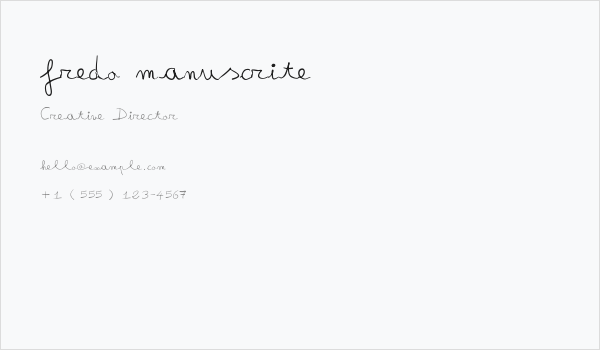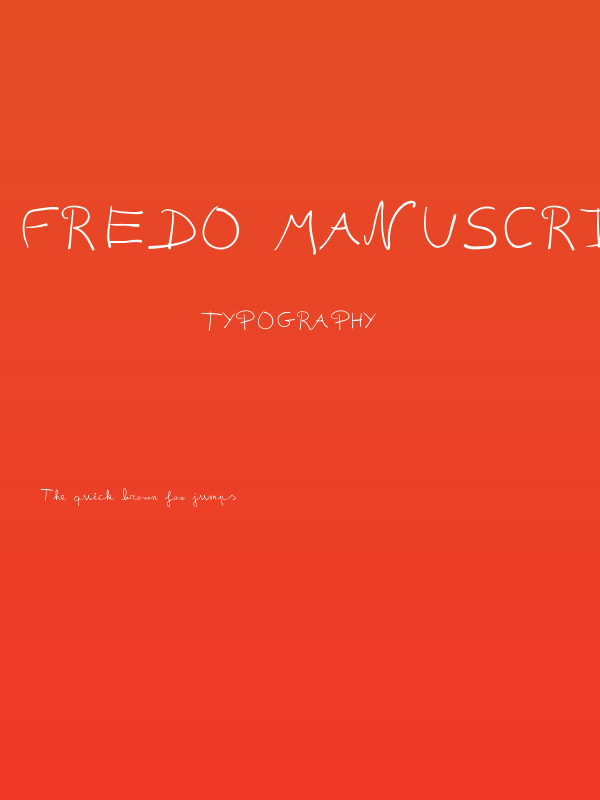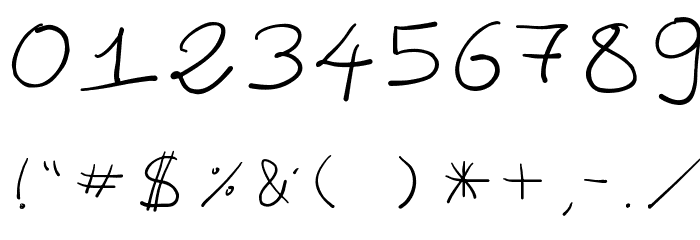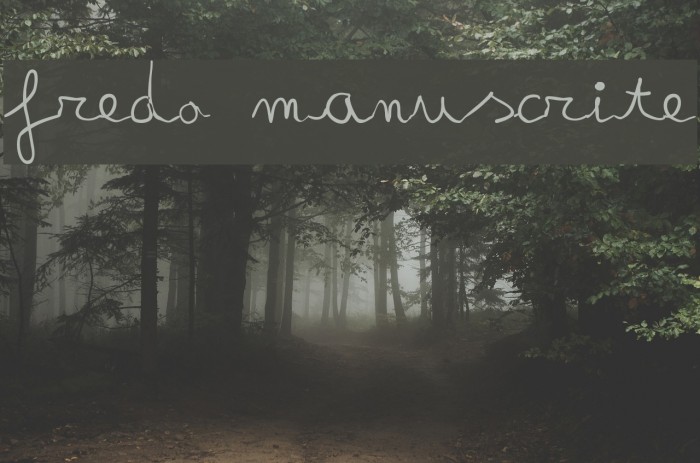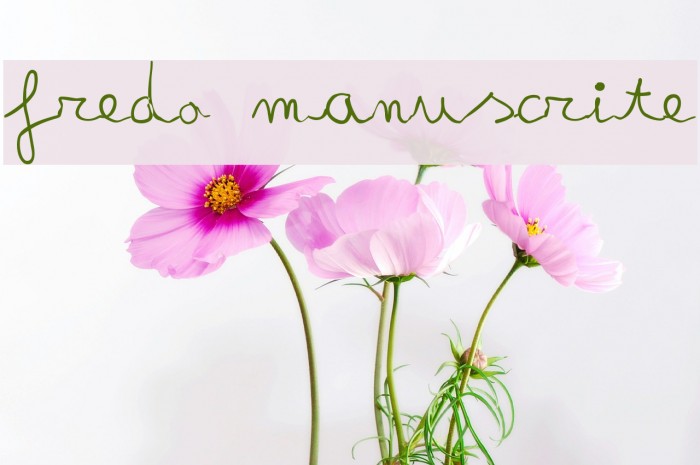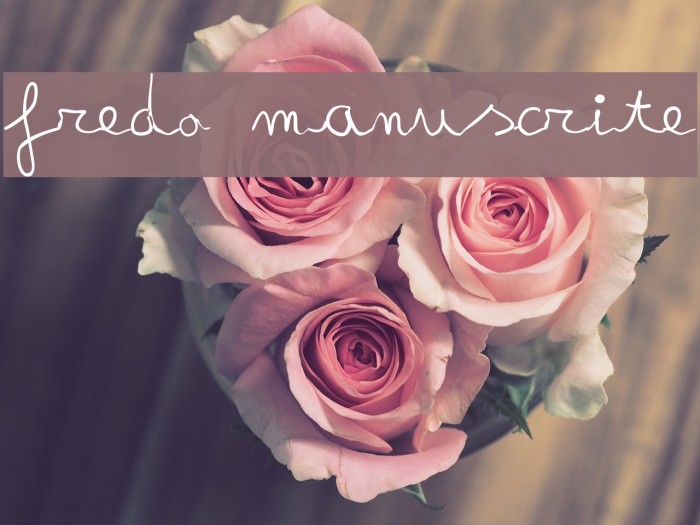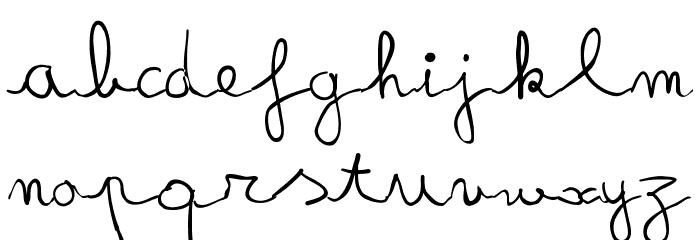
fredo manuscrite Font
fredo manuscrite Description
This font exudes a playful and casual handwritten style, characterized by its fluid and slightly irregular strokes. The uppercase letters are bold and confident, while the lowercase letters maintain a consistent flow, giving the impression of a personal touch. The numbers are clear and easy to read, with a slight tilt that adds to the overall charm. Special characters are well-integrated, maintaining the font's cohesive look. This font's unique personality makes it ideal for projects that require a personal or informal tone.
| Proposed Projects | Ideal for greeting cards, personal notes, invitations, and creative branding projects. |